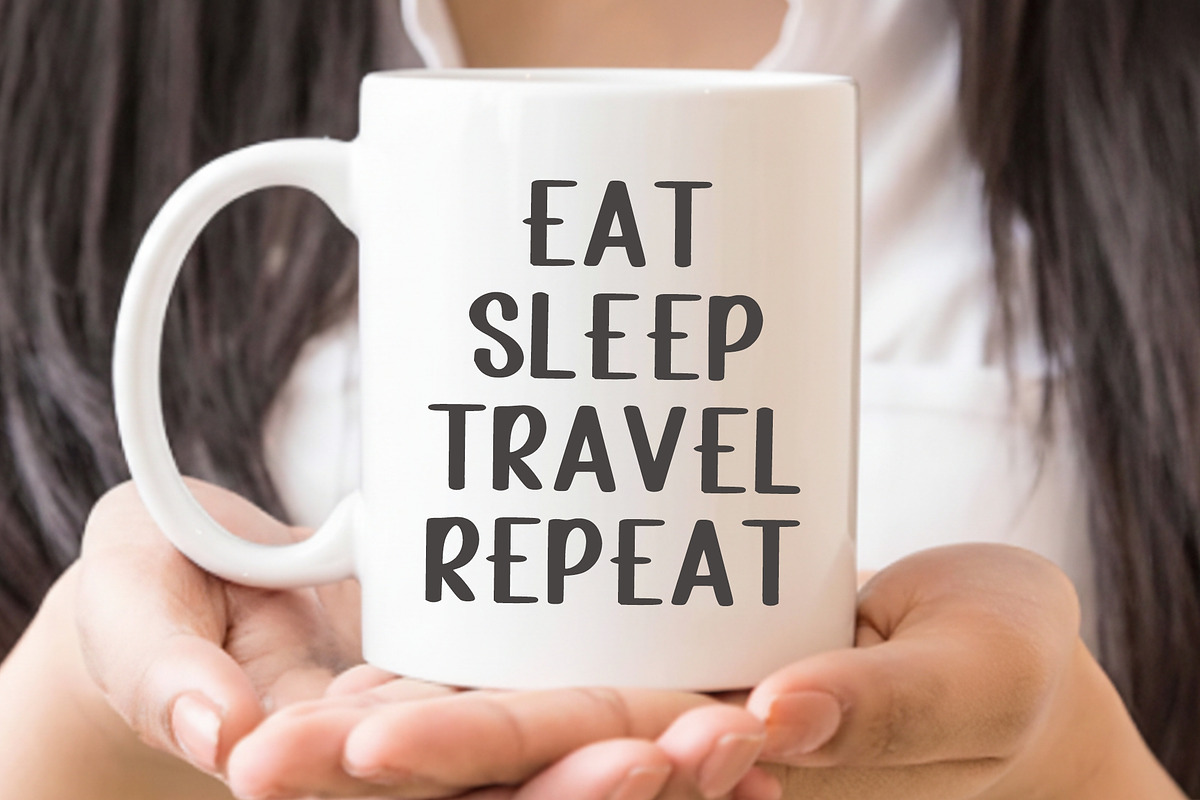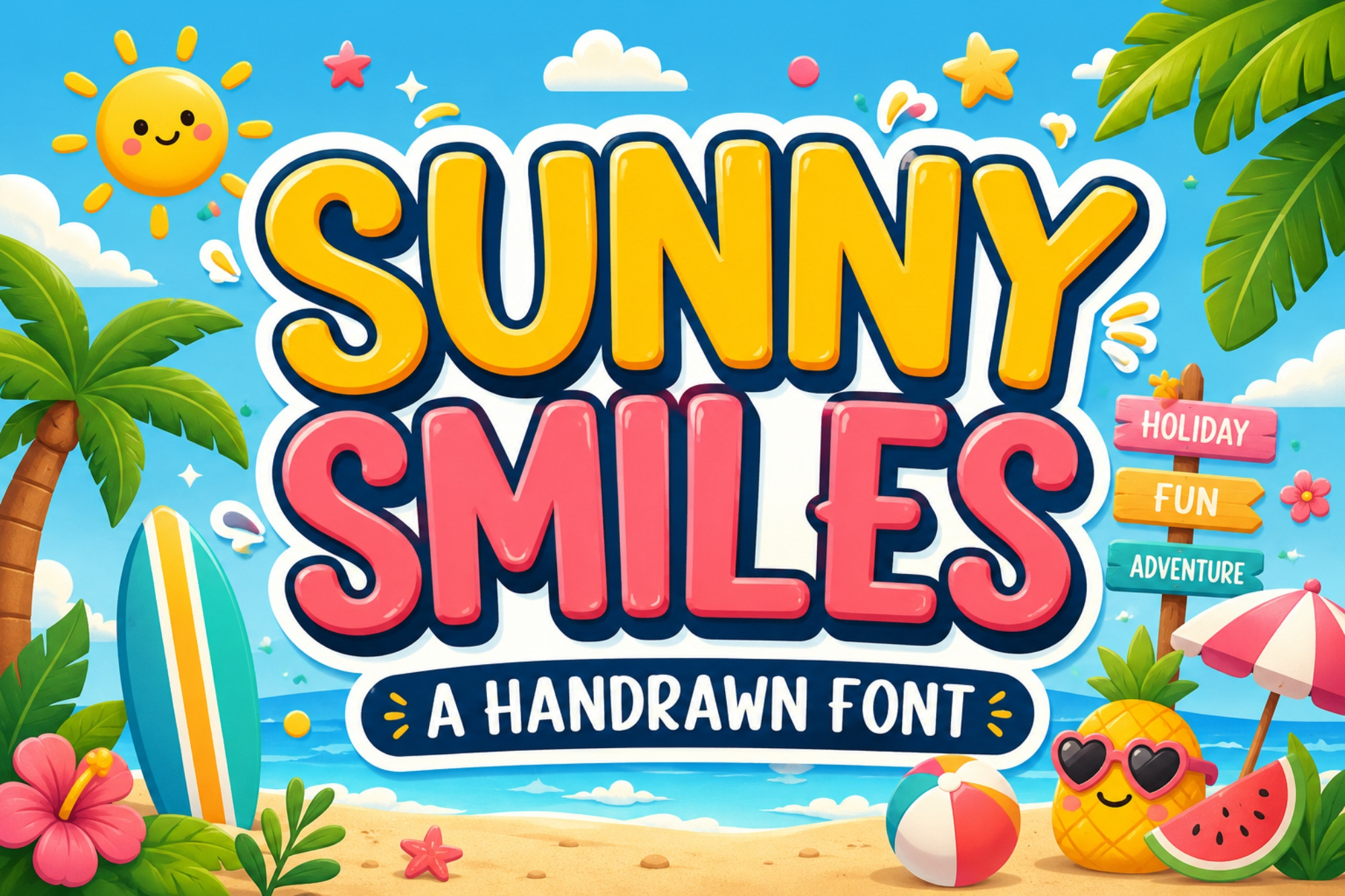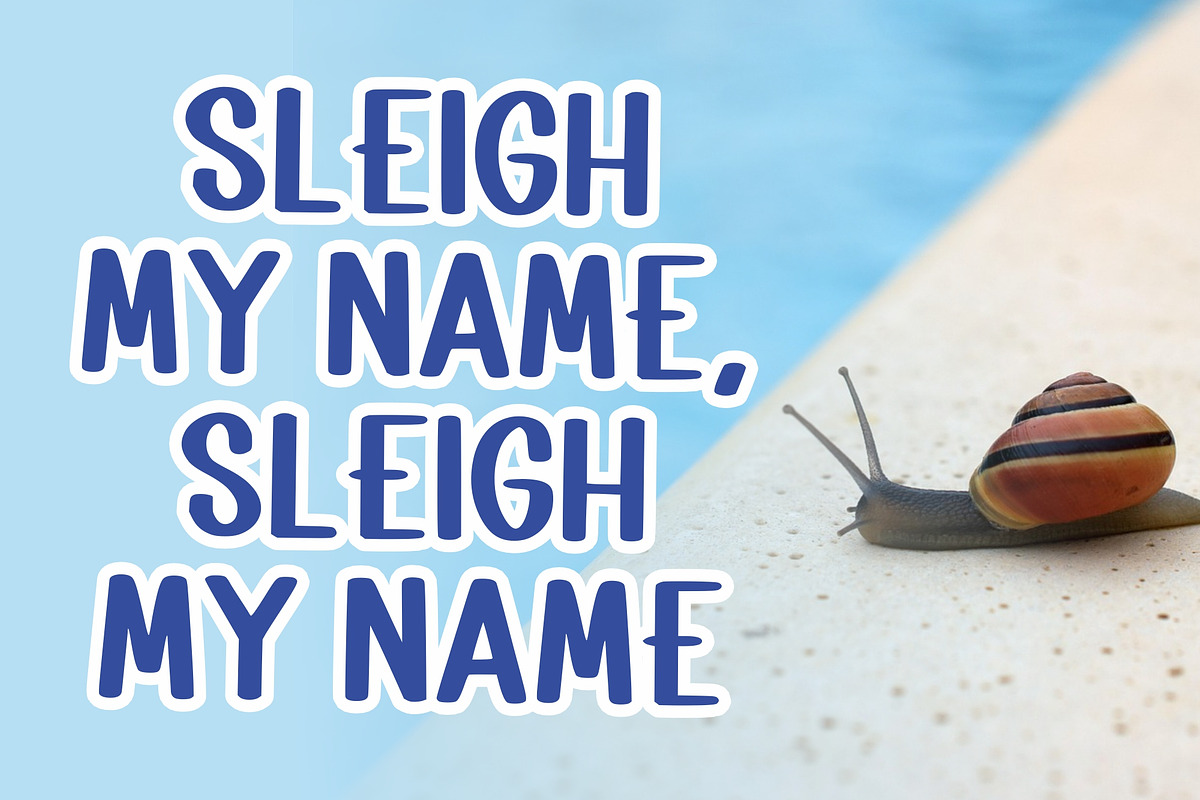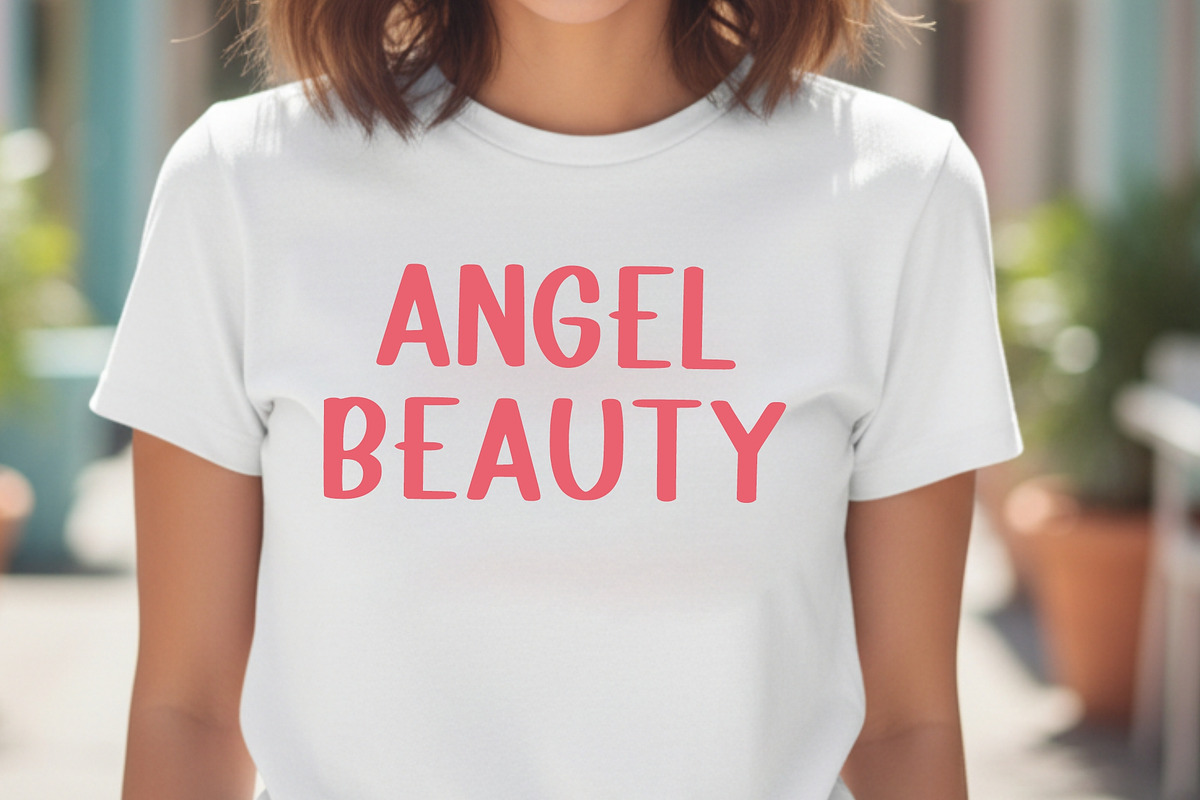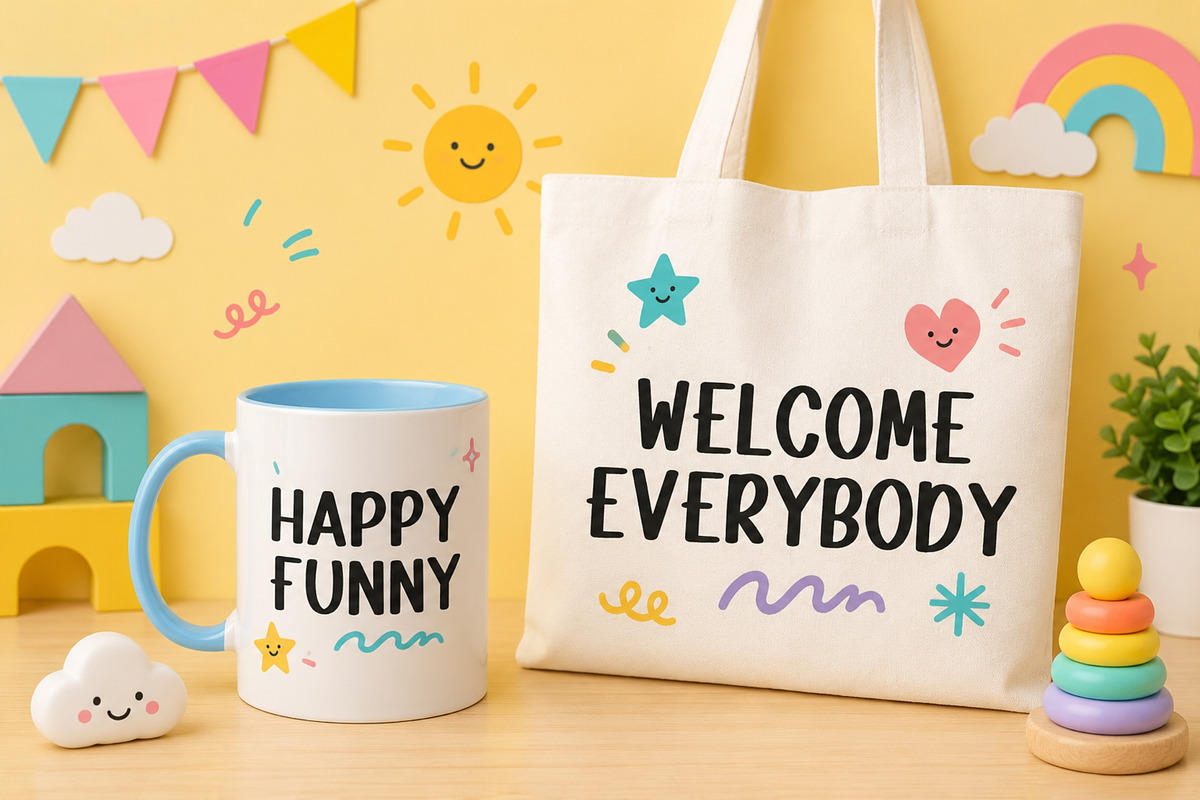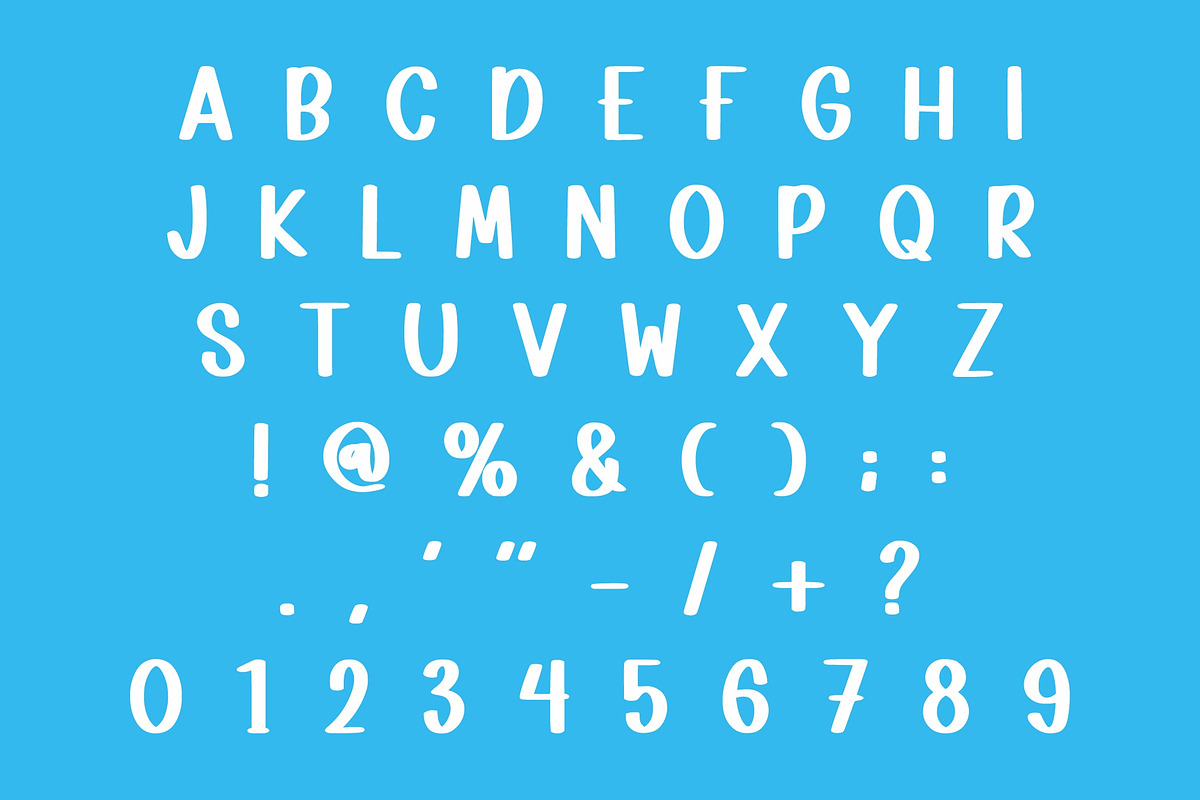
Sunny Smiles - Handwritten Fonts
Sunny Smiles is a fun-filled handwritten display font designed to capture the joy of summer. With its bold curves, smooth edges, and friendly personality, this font instantly brings a playful and energetic feel to any project.
Whether you're creating beach-themed merchandise, children's book covers, classroom materials, birthday invitations, social media graphics, stickers, packaging, or branding projects, Sunny Smiles delivers a warm and engaging look that stands out.
The font combines readability with a whimsical hand-drawn style, making it suitable for both print and digital applications.
Recommended Uses
Children's Books
Summer Branding
Beach Party Invitations
Stickers & Labels
T-Shirt Designs
Social Media Posts
Posters & Flyers
School Projects
Cricut & Silhouette Crafts